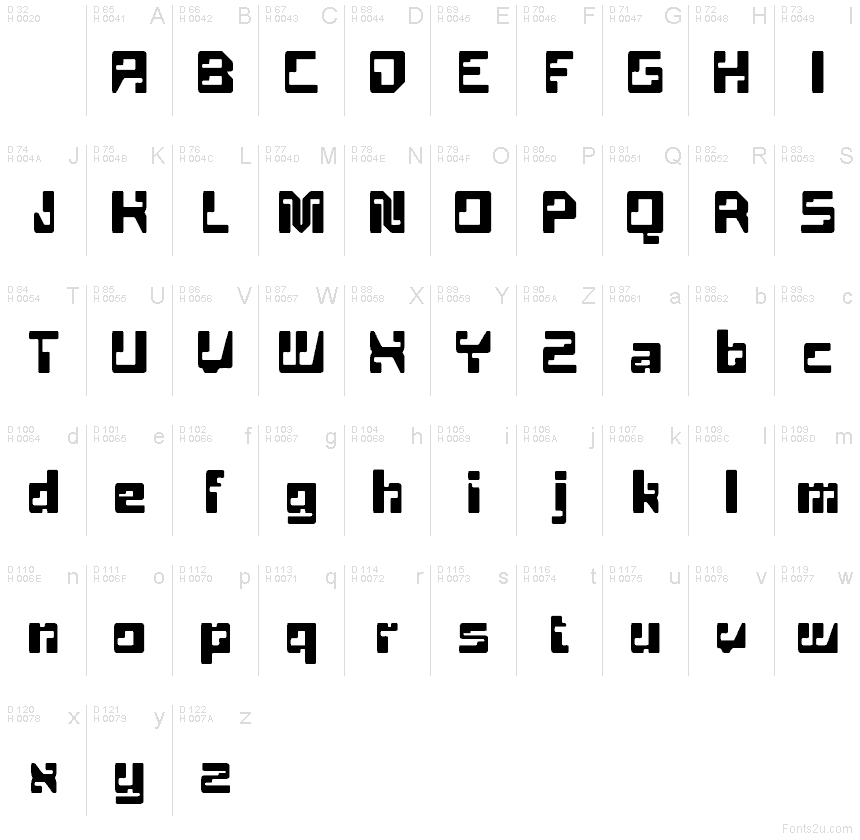
CSAphexDrawn-Regular Demo
CS Aphex Drawn font by Craft Supply Co. is a futuristic display font that has a geometric, utilitarian feel. This industrial typeface has minimal ornamentation, clean lines, and consistent spacing for improved readability. The geometric shapes, sharp corners, straight edges, and uniform width make this modern font impactful in its visual presence.